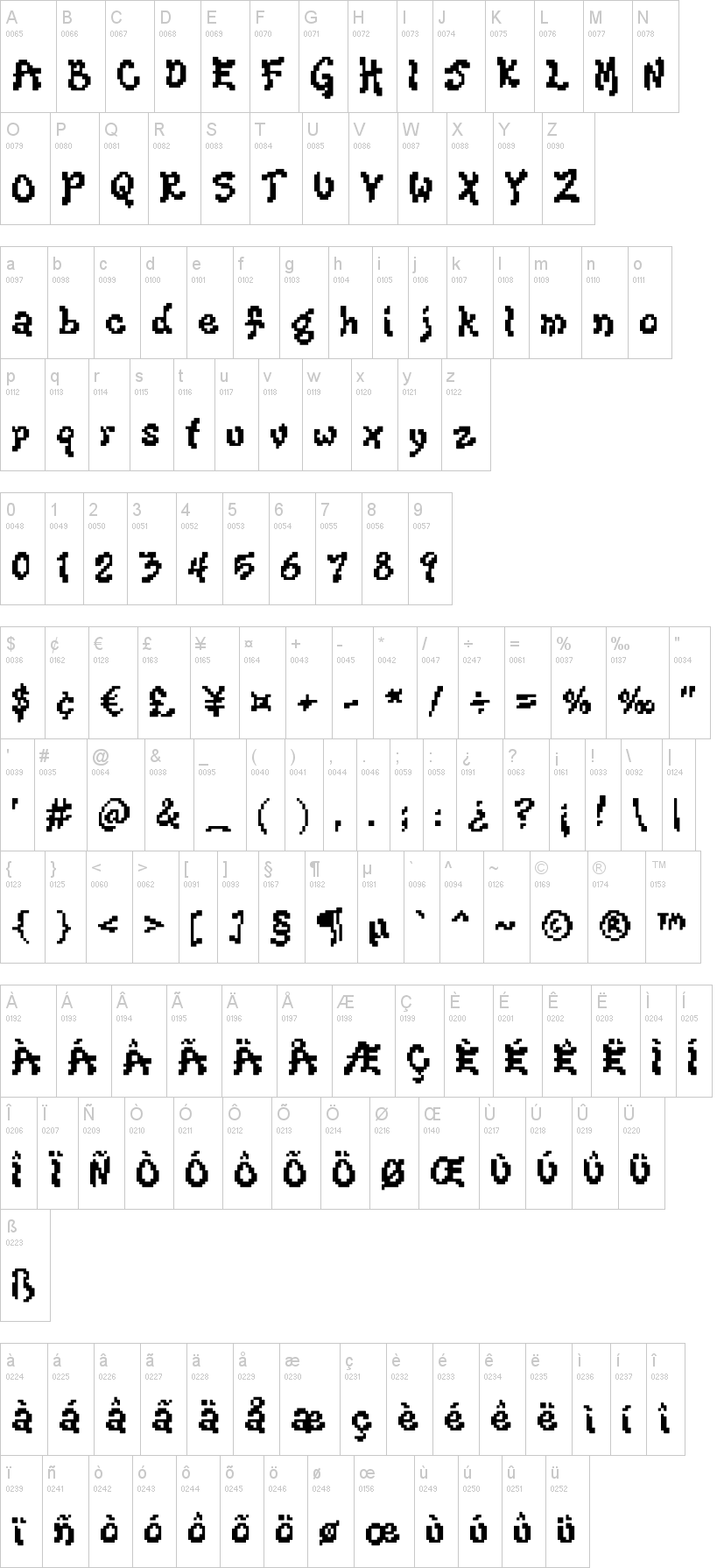
Note of the authorKiwi Soda by jeti: A font inspired by the bouncy, kinda-kooky, graffiti-adjacent, super-hippy-dippy exuberance of the fruitopia logo.